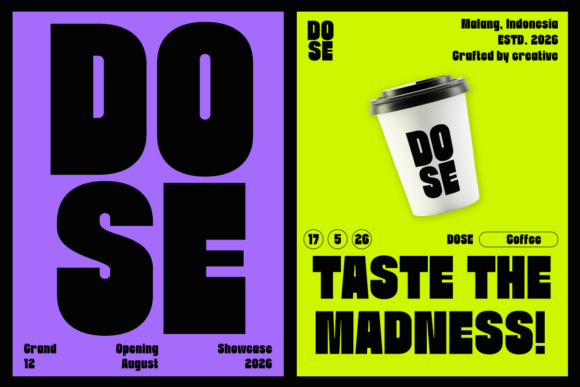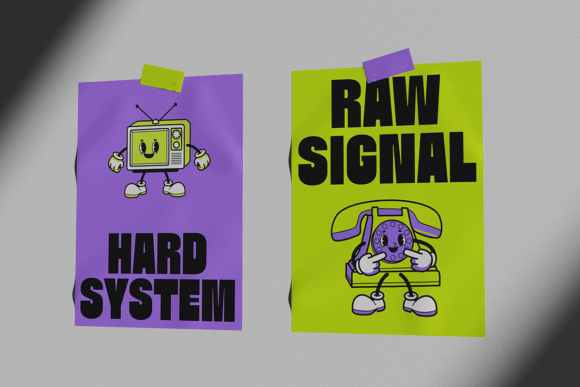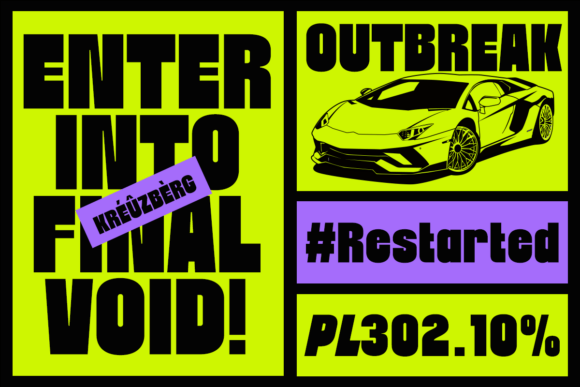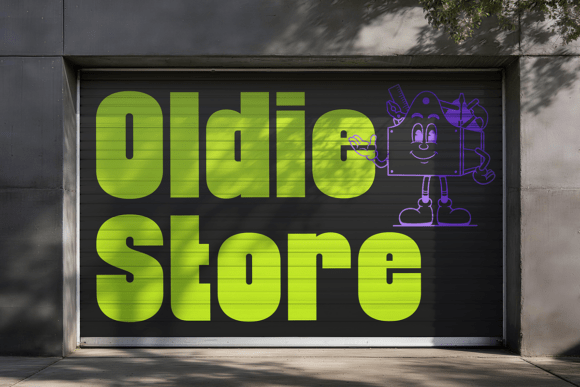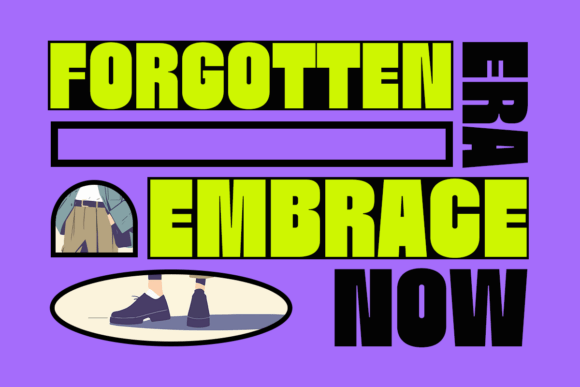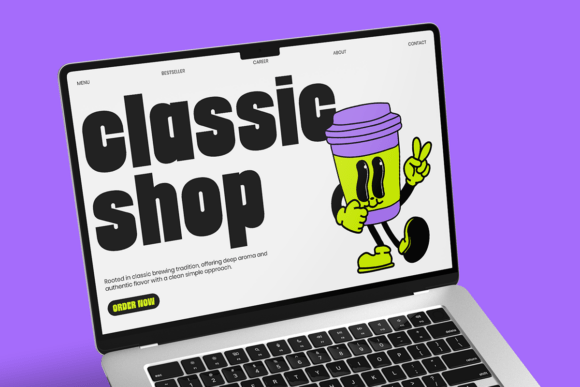
Dilabo Font: The Ultimate Bold Condensed Sans Serif for Modern Branding
In the world of typography, a font can make or break a design. When it comes to creating a powerful visual impact in modern branding and display design, Dilabo Font is the perfect choice. This bold condensed sans serif font is built to grab attention, convey confidence, and deliver a strong urban personality. In this article, we’ll dive into the features, benefits, and uses of Dilabo Font, and explore why it’s a must-have for designers and crafters.
The Design of Dilabo Font
Dilabo Font is characterized by its tall proportions, thick letterforms, and confident geometric structure. This unique combination creates a clean yet aggressive typographic style that’s perfect for standout creative projects. The font’s condensed shape allows for maximum space optimization while maintaining readability and bold character, making it ideal for strong visual hierarchy and impactful compositions.
Key Features of Dilabo Font
- Bold and Condensed: Dilabo Font is designed to make a statement with its bold and condensed letterforms, perfect for grabbing attention in modern branding and display design.
- Sans Serif: The font features a clean sans serif design, making it versatile and easy to read.
- Tall Proportions: Dilabo’s tall proportions create a sense of confidence and strength, perfect for sports branding, streetwear, and modern advertising.
- Geometric Structure: The font’s geometric structure adds a touch of modernity and sophistication, making it perfect for futuristic brand identities and trendy designs.
Uses of Dilabo Font
Dilabo Font is designed with versatility in mind, making it perfect for a wide range of applications, including:
- Logo Design: Create a strong and memorable logo with Dilabo Font’s bold and condensed letterforms.
- Sports Branding: Add a touch of energy and confidence to your sports branding with Dilabo’s tall proportions and geometric structure.
- Streetwear: Dilabo Font is perfect for streetwear designs, with its bold and aggressive typographic style.
- Posters: Create eye-catching posters with Dilabo Font’s bold and condensed letterforms.
- Packaging: Add a touch of modernity and sophistication to your packaging designs with Dilabo Font.
- Magazine Headlines: Use Dilabo Font to create bold and attention-grabbing headlines in your magazine designs.
- YouTube Thumbnails: Create eye-catching YouTube thumbnails with Dilabo Font’s bold and condensed letterforms.
- Social Media Graphics: Use Dilabo Font to create engaging and attention-grabbing social media graphics.
- Modern Advertising: Dilabo Font is perfect for modern advertising, with its bold and confident typographic style.
Why Choose Dilabo Font?
So, why choose Dilabo Font for your next design project? Here are just a few reasons:
- Unique and Memorable: Dilabo Font’s bold and condensed letterforms create a unique and memorable typographic style that’s sure to grab attention.
- Versatile: Dilabo Font is designed with versatility in mind, making it perfect for a wide range of applications.
- Modern and Sophisticated: The font’s geometric structure and clean sans serif design make it perfect for modern and sophisticated designs.
- Professional and Trendy: Dilabo Font feels professional, trendy, and highly marketable, making it perfect for designers and crafters who want to create high-quality designs.
| Font Name | Dilabo Font |
| Author | SayStudio |
In conclusion, Dilabo Font is a powerful and versatile bold condensed sans serif font that’s perfect for modern branding and display design. With its unique combination of tall proportions, thick letterforms, and confident geometric structure, Dilabo Font delivers a strong urban personality that’s sure to grab attention. Whether you’re a designer or crafter, Dilabo Font is a must-have for creating standout creative projects that feel professional, trendy, and highly marketable.